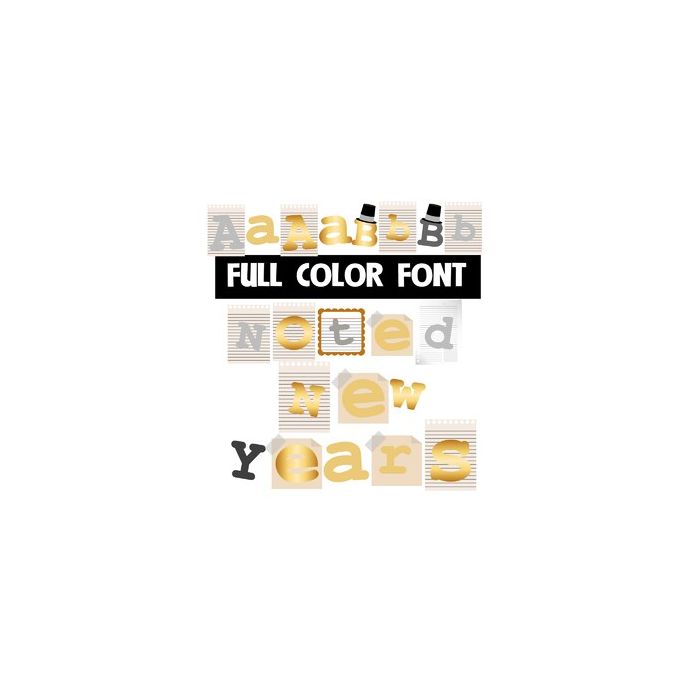
This full-color font features a silver and gold color palette with a mix of lettering. There is an alt upper and lowercase with additional colors that you can access through Silhouette's glyph map.